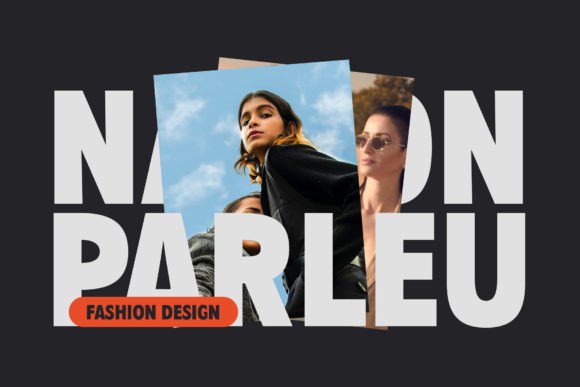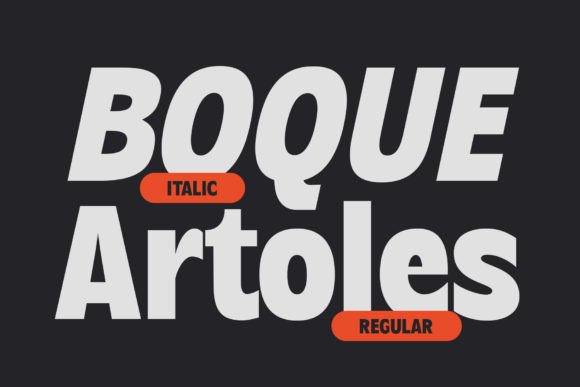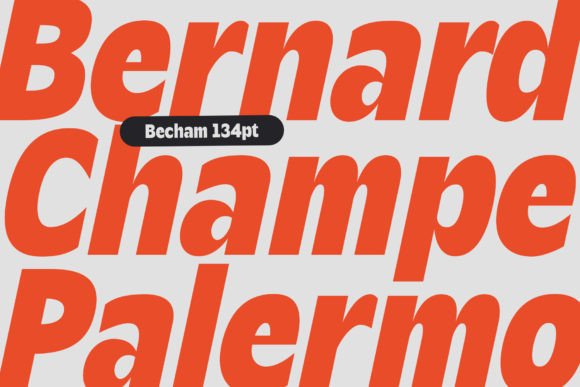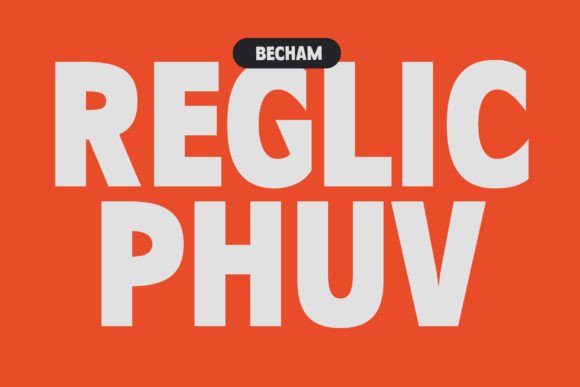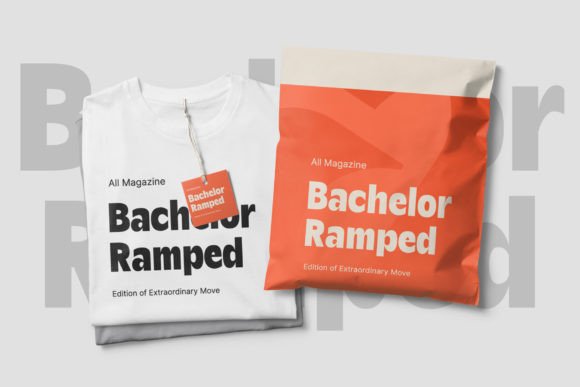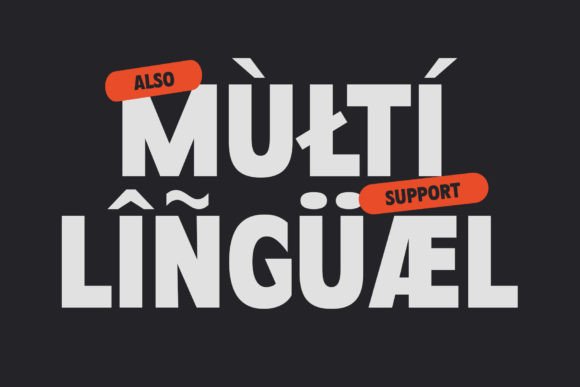
Introducing Becham: The Bold Sans-Serif Font That Makes a Statement
I’ll never forget the time I was working on a project for a client who wanted a bold, eye-catching font to make their brand stand out. I scoured the internet, trying out font after font, but nothing seemed quite right. That was until I stumbled upon Becham, a bold sans-serif font that commands attention with its strong presence. With its impactful lines and modern appeal, Becham adds a bold touch to any project, and I knew I had found the perfect fit.
A Personal Review of Becham
What I Love About Becham
- ✨ Strong and assertive style: Becham’s bold lines and modern appeal make it perfect for designs that need to make a statement.
- ✅ Versatile: Becham works well for a variety of projects, from greeting cards and packaging to brand identity and posters.
- 🎨 Easy to pair with other fonts: Becham’s clean and simple design makes it easy to pair with other fonts, creating a harmonious and visually appealing design.
While Becham is an excellent font, there are a few things to keep in mind:
- 🤔 Legibility at small sizes: Becham’s bold style can make it difficult to read at very small sizes. It’s best used at larger sizes where its impact can be fully appreciated.
- ⚠️ Limited use for body text: Due to its bold style, Becham is not ideal for large blocks of body text. It’s best used for headings, titles, or short phrases.
- Experiment with Becham’s OpenType features, such as glyphs and stylistic alternates, to add visual interest to your design.
The Backstory of Becham
Becham was designed by a team of typographers who wanted to create a bold and modern sans-serif font that would make a statement. Inspired by the geometric shapes of modern architecture, Becham’s designers aimed to create a font that was both strong and elegant. The result is a font that’s perfect for designs that require a bold and attention-grabbing style.
Q: What is Becham font?
A: Becham is a bold sans-serif font that commands attention with its strong presence.
Q: What is Becham font used for?
A: Becham is ideal for designs that require a bold and attention-grabbing style, such as greeting cards, packaging, brand identity, posters, and more.